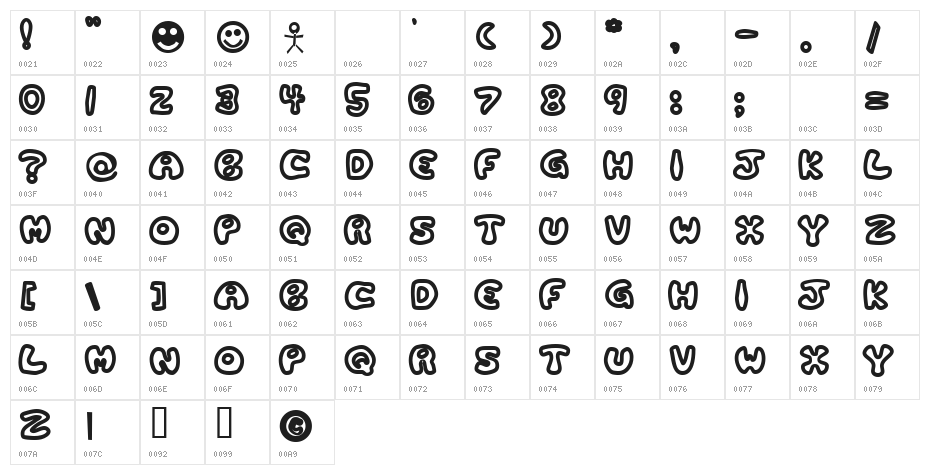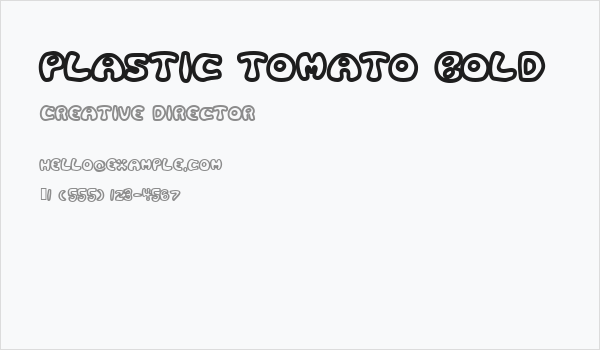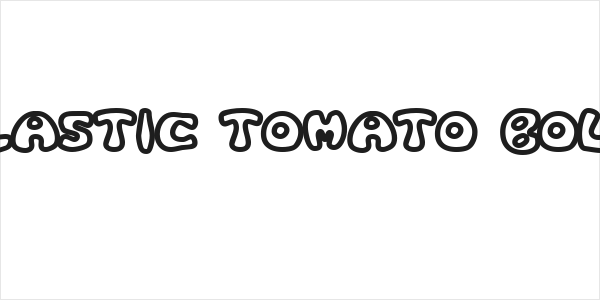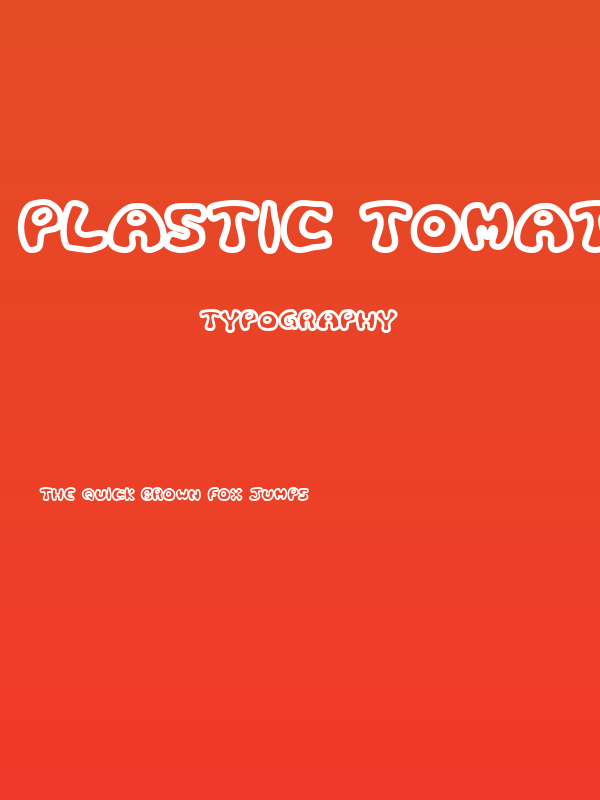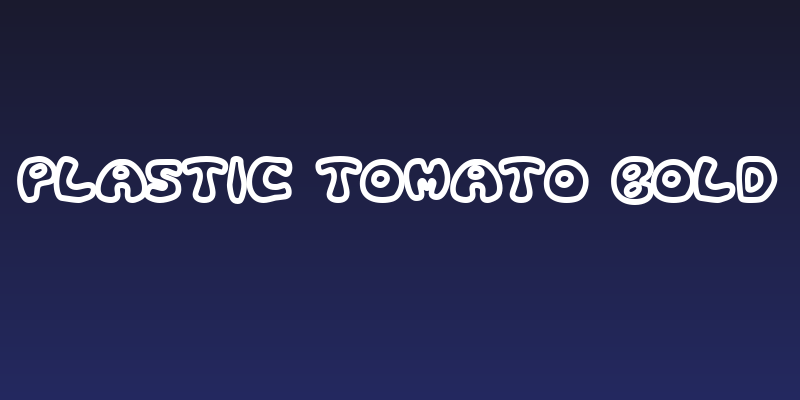
Plastic Tomato Bold Font
Plastic Tomato Bold Description
This playful and bold font features rounded, bubble-like characters that exude a sense of fun and whimsy. Each letter is outlined with a thick black stroke, giving it a cartoonish and eye-catching appearance. The characters are uniformly bold, with a consistent thickness throughout, making them highly legible and impactful. The font includes both uppercase and lowercase letters, numerals, and a variety of special characters, each maintaining the same playful style. The overall design is reminiscent of comic book lettering, with a modern twist that makes it suitable for a variety of creative projects.
Overall StylePlayful, Modern, Cartoonish
Proposed ProjectsIdeal for children's books, comic strips, playful branding, party invitations, and eye-catching posters.